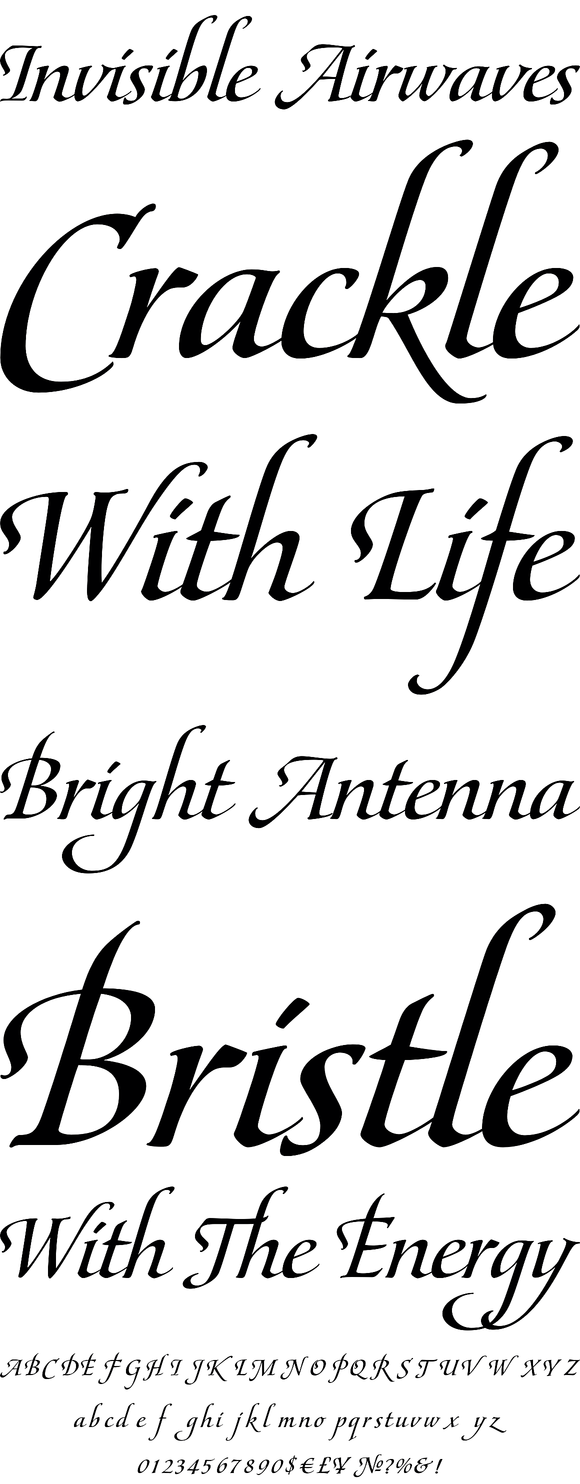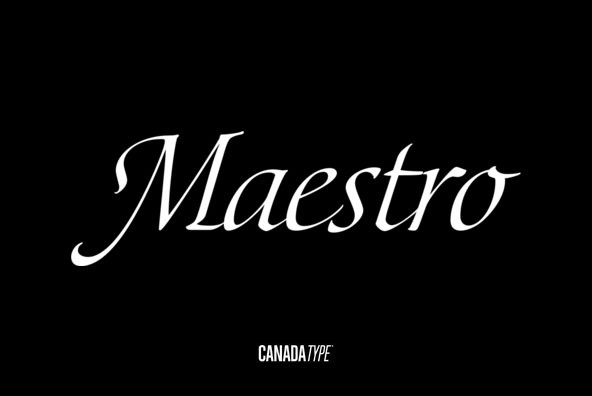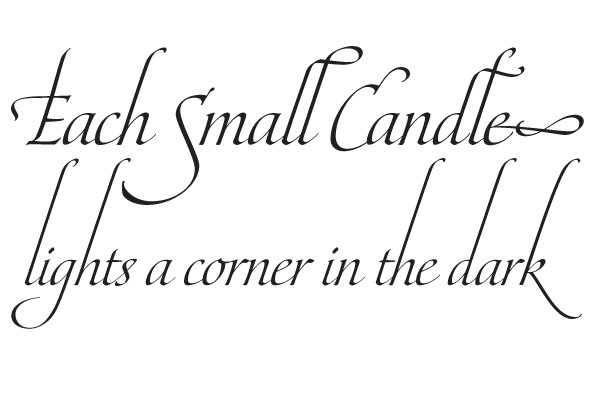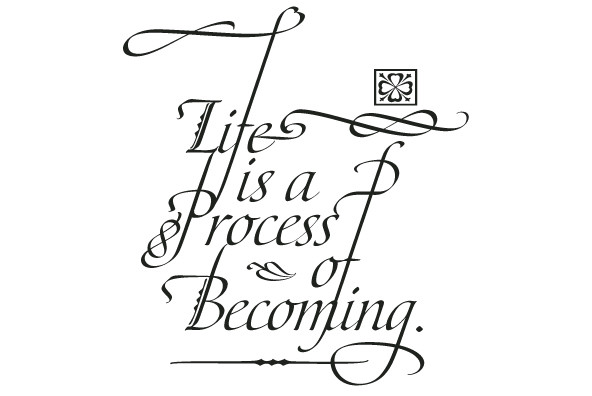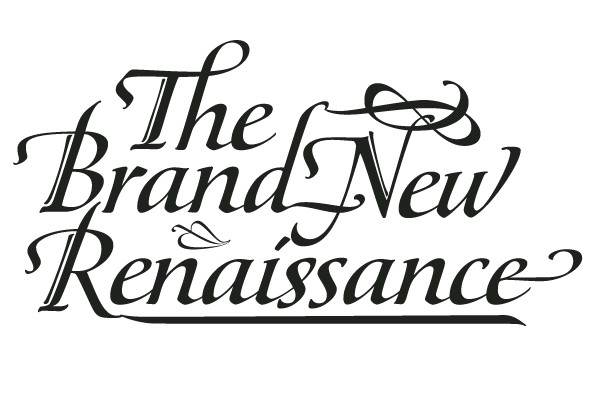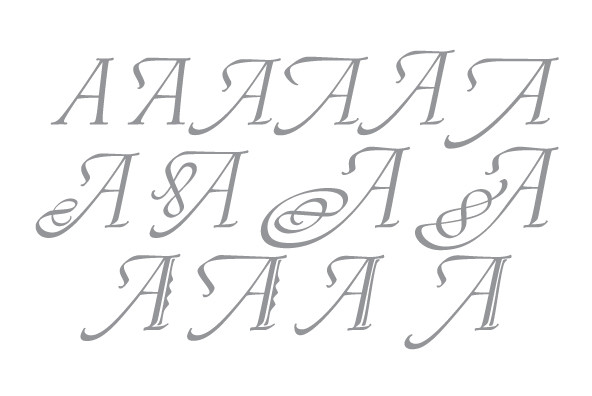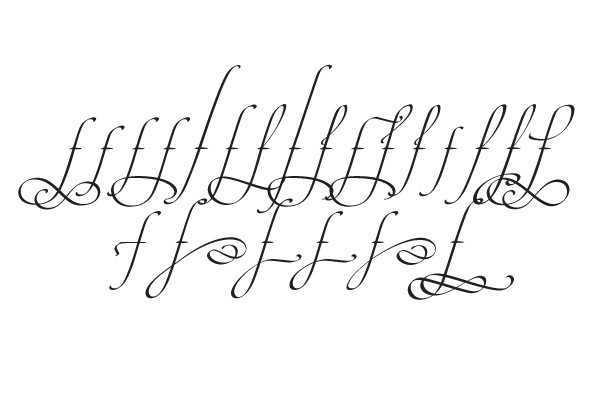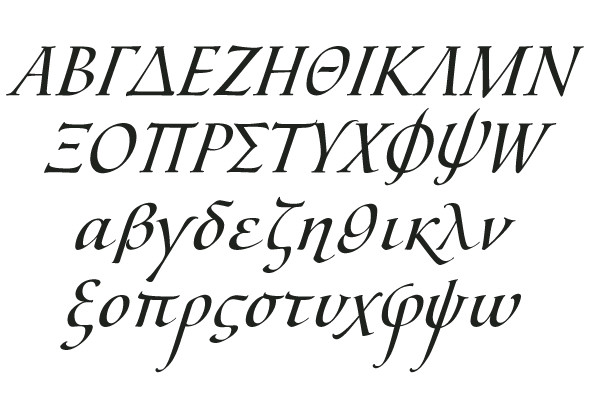
Maestro
Out of a lifelong inner struggle, Philip Bouwsma unleashes a masterpiece that reconciles classic calligraphy with type in a way never before attempted.
Maestro takes its cue from the Italian chancery cursive of the early sixteenth century. By this time type ruled the publishing world, but official court documents were still presented in calligraphy, in a new formal style of the high Renaissance that was integrated with Roman letters and matched the refined order of type. The copybooks of Arrighi and others, printed from engraved wood blocks, spread the Italian cancellaresca across Europe, but the medium was too clumsy and the size too small to show what was really happening in the stroke. Arrighi and others also made metal fonts that pushed type in the direction of calligraphy, but again the medium did not support the superb artistry of these masters or sustain the vitality in their work. As the elegant sensitive moving stroke of the broad pen was reduced to a static outline, the human quality, the variety and the excitement of a living act were lost. Because the high level of skill could not be reproduced, the broad pen was largely replaced by the pointed tool. The modern italic handwriting revival is based on a simplified model and does not approach the level of this formal calligraphy with its relationship to the Roman forms.
Maestro is the font that Arrighi and his colleagues would have made if they had had digital technology. Like the calligraphic system of the papal chancery on which it is modelled, it was not drawn as a single finished alphabet, but evolved from a confluence of script and Roman; the script is formalized by the Roman to stand proudly in a world of type. Maestro came together on screen over the course of several years, through many versions ranging widely in style, formality, width, slant, weight and other parameters. On one end of the spectrum, looking back to tradition it embodies the formal harmony of the Roman capitals and the minuscule which became the lower case. On the other it is a flowing script letter drawing on the spirit of later pointed pen and engravers scripts. As its original designers intended, it works with simple Roman capitals and serifs or swash capitals and baroque flourishes. The broad pen supplies weight and substance to the stroke which carries energy through tension in balanced s-curves. Above all it is meant to convey the life and motion of formal calligraphy as a worthy counterbalance to the stolid gravity of metal type.
The Maestro family consists of forty fonts distributed over two weights. The OpenType version compresses the family considerably down to two fonts, regular and bold, each containing the entire character set of twenty fonts, for a total of more than 3350 characters per font. These include a wide variety of stylistic alternates, ligatures, beginning and ending letters, flourishes, borders, rules, and other extras. The Pro version also includes extended linguistic support for Latin-based scripts (Western, Central and Eastern European, Baltic, Turkish, Welsh/Celtic, Maltese) as well as Greek.